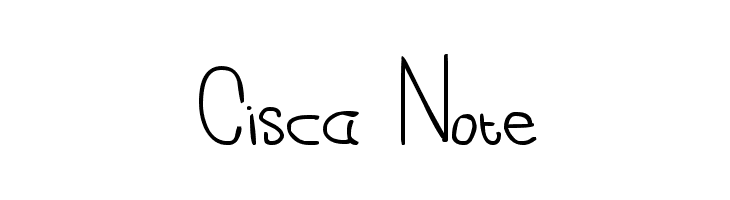
A playful handwritten font with tall, narrow letters and a whimsical style.
A playful, handwritten font with a casual and friendly style.
A playful, whimsical font with rounded, irregular letterforms.